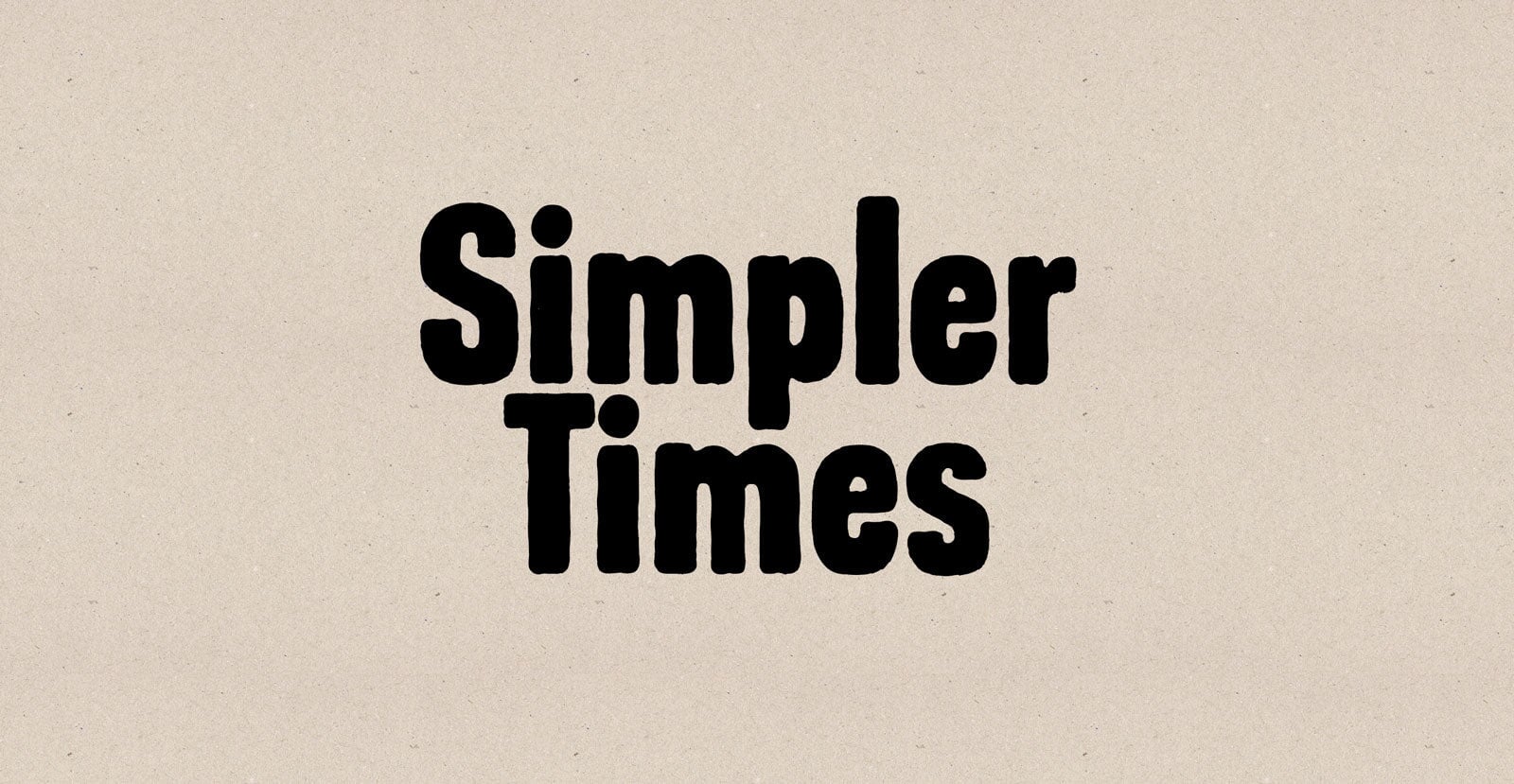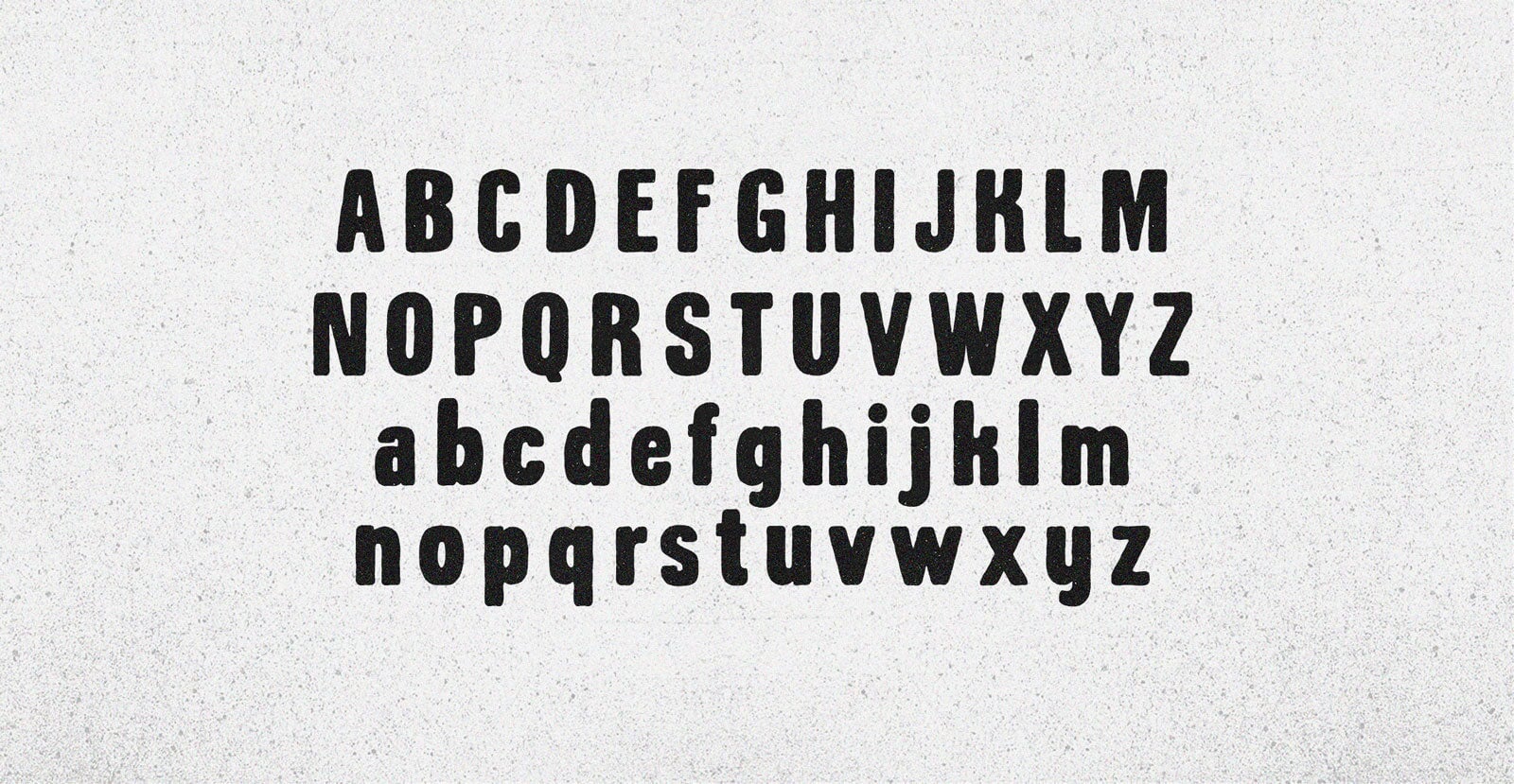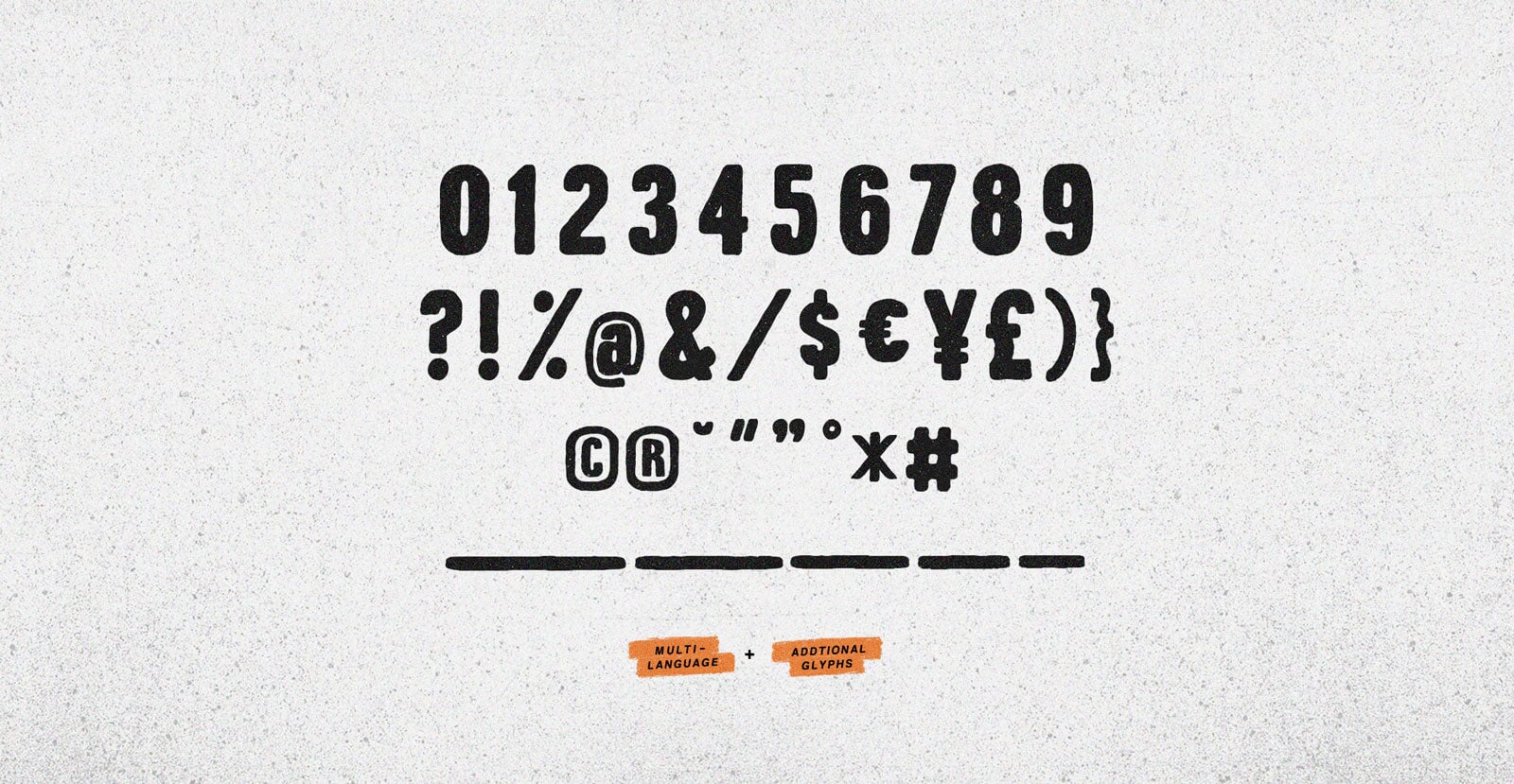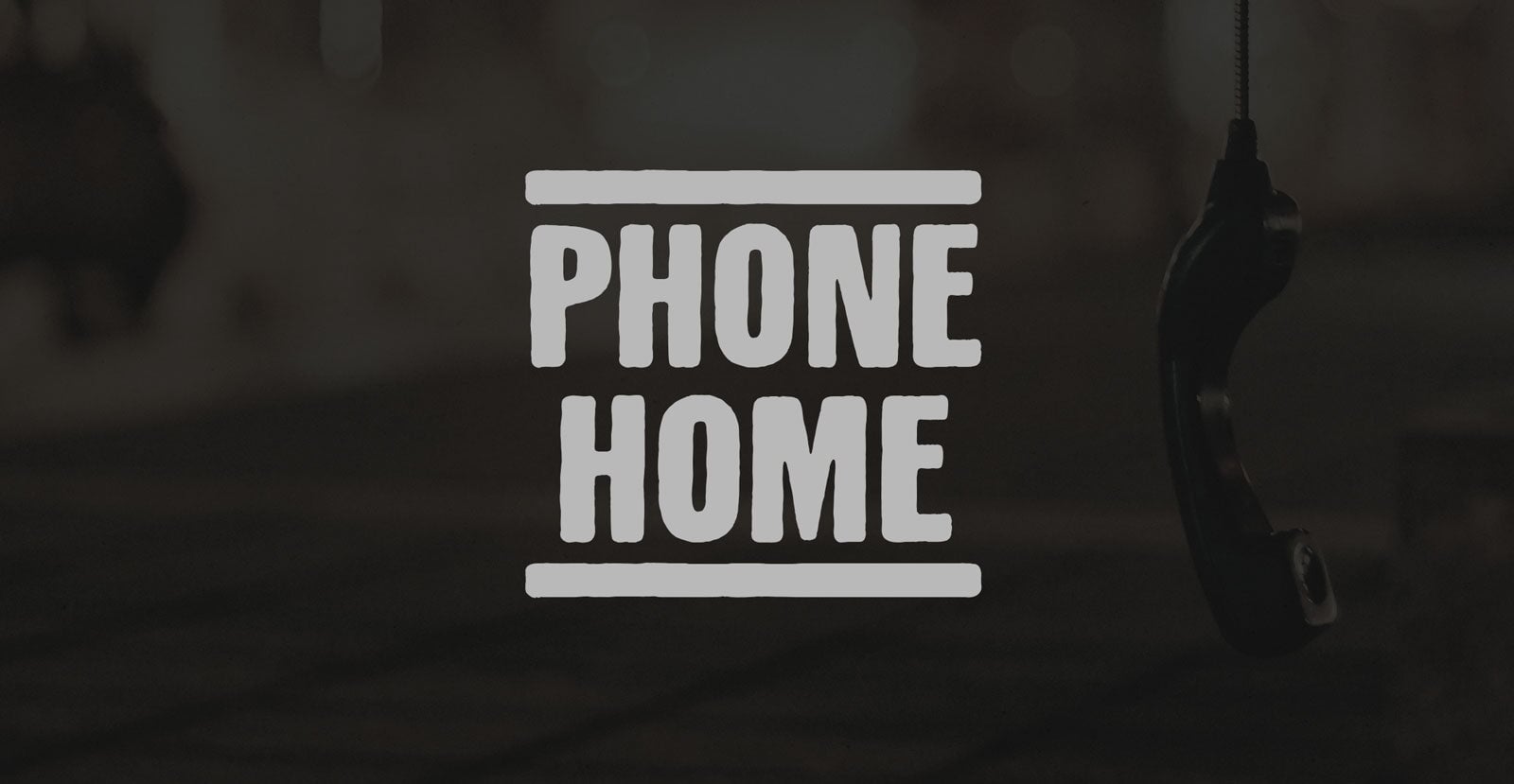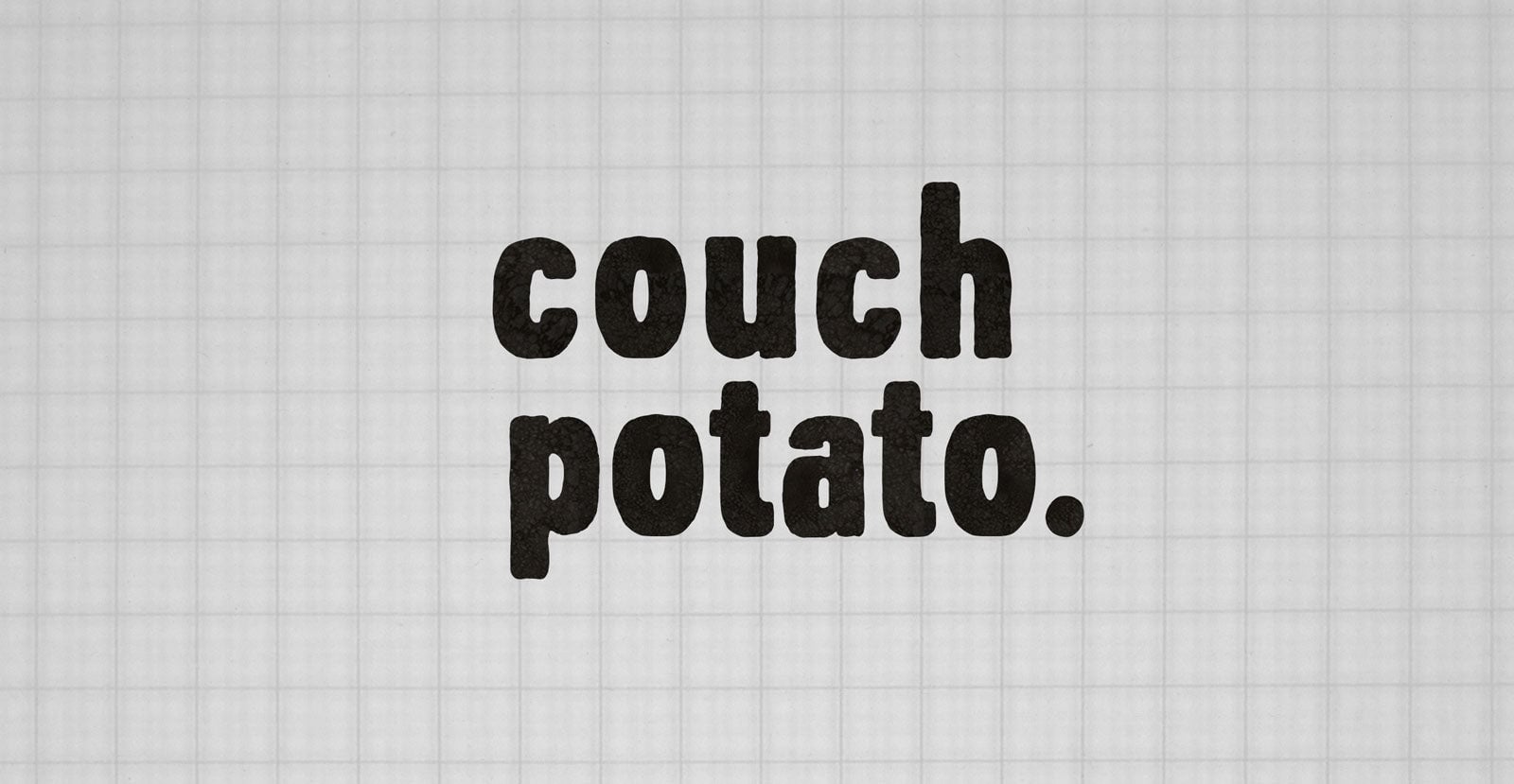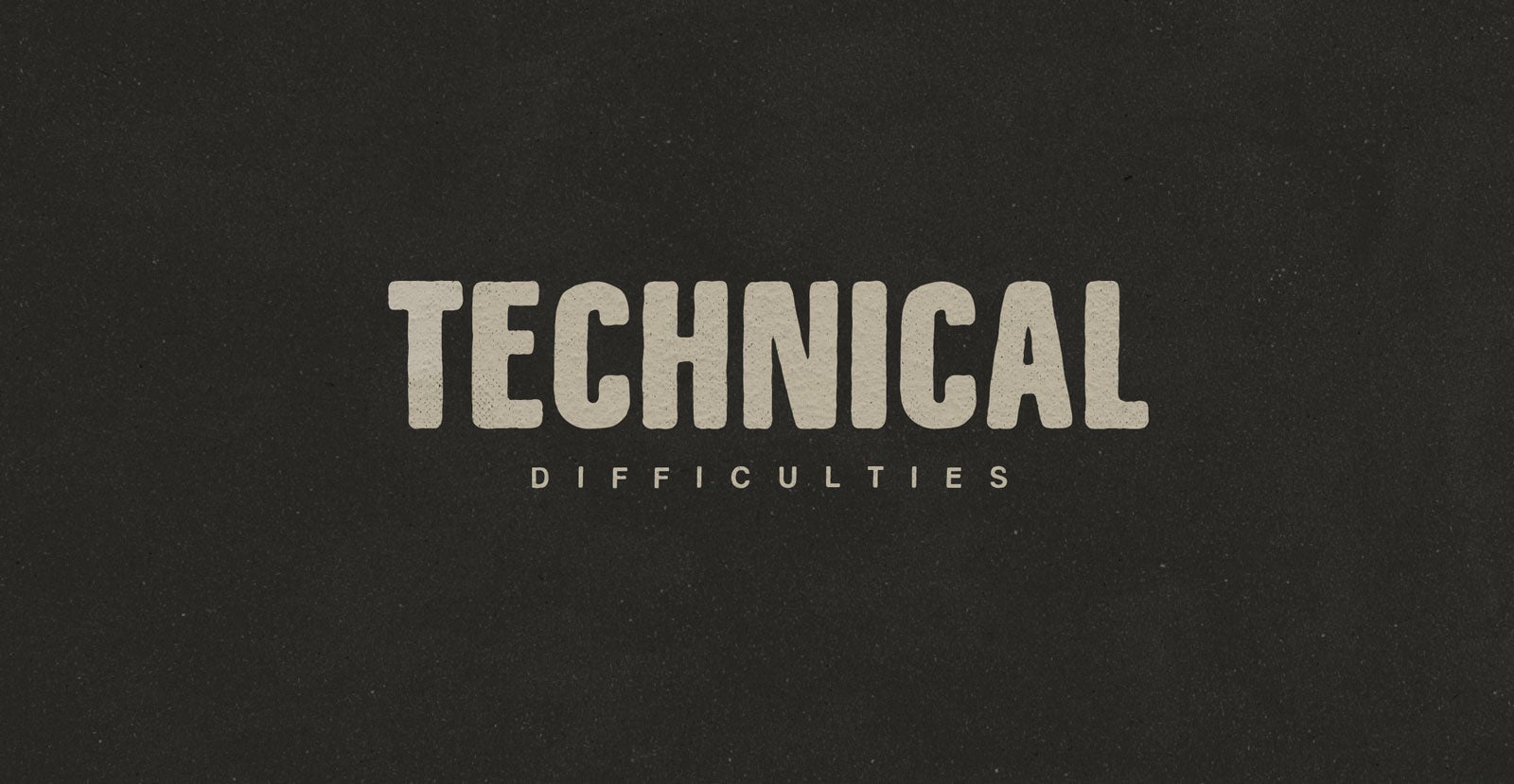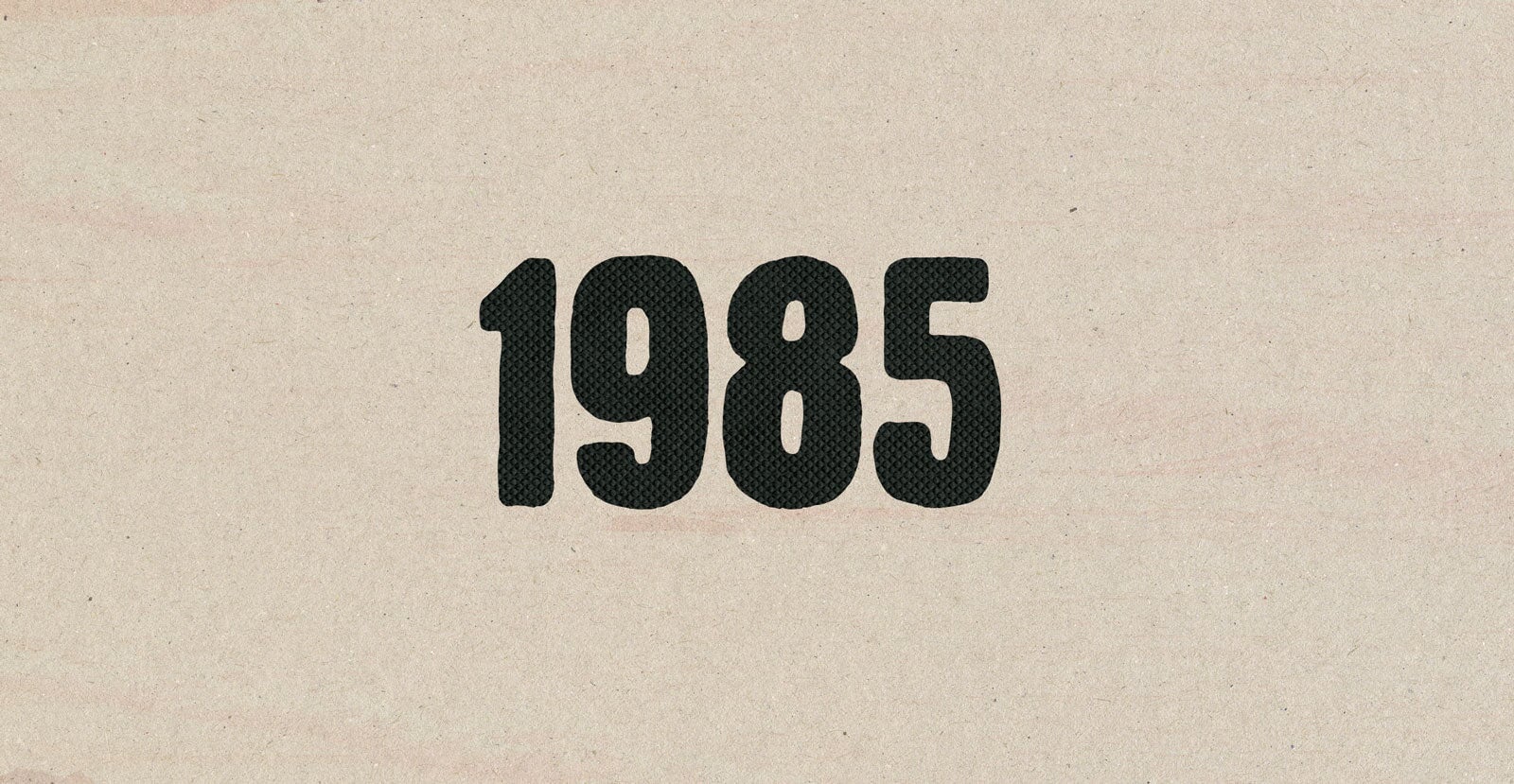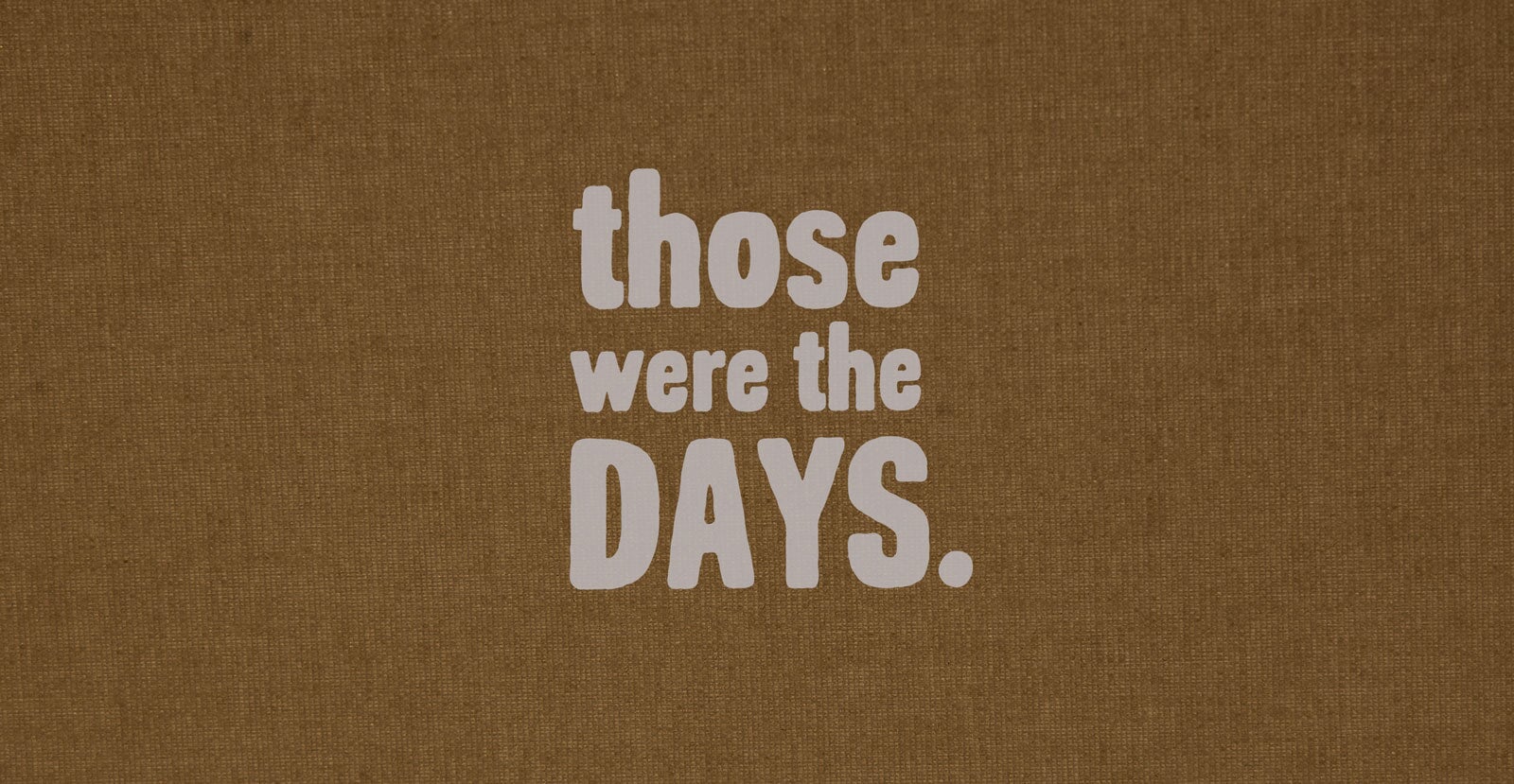
Simpler Times
Handwritten Sans Serif Font
Simpler Times is about slowing down and enjoying what matters. It’s not fancy or complicated. Everything’s made to feel easy, honest, and calming. No clutter, no noise, just things that make life feel a little lighter.
• Underlines